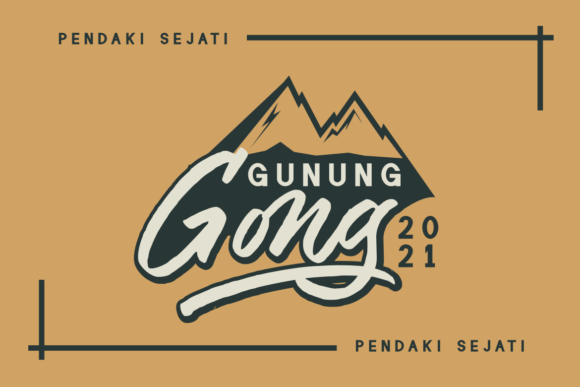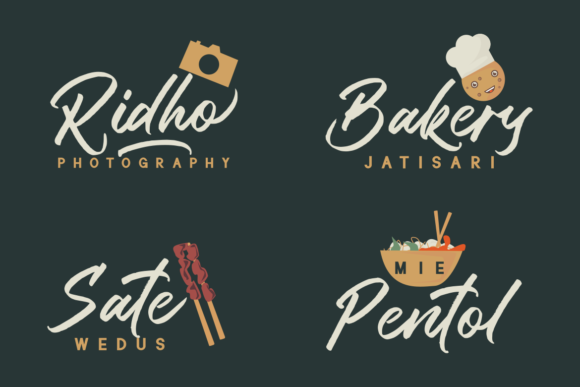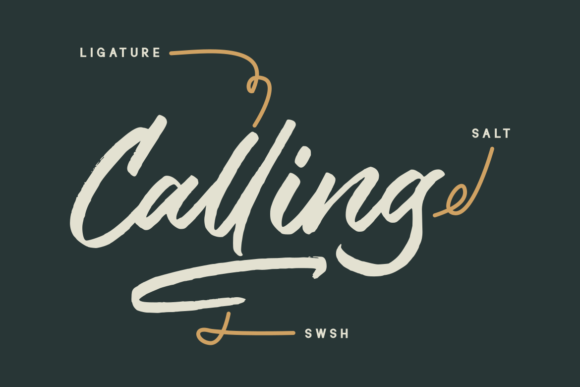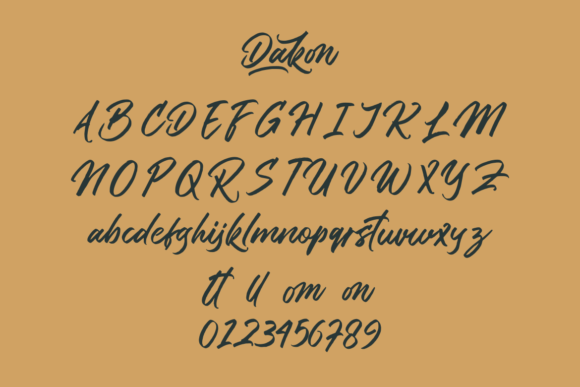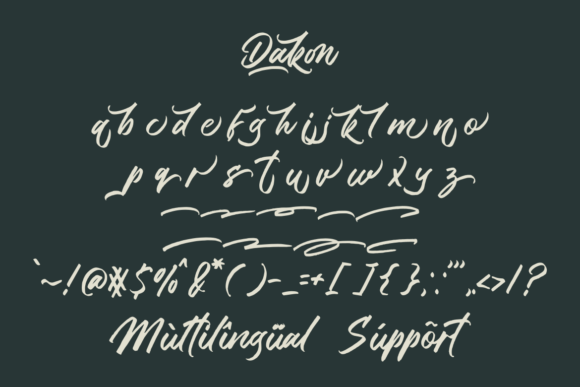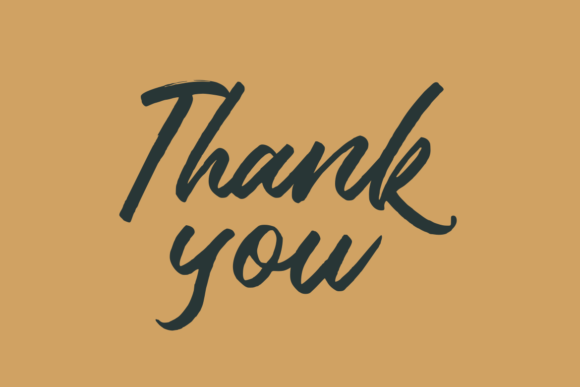
Introduction to Dakon Font
As I sat at my desk, surrounded by scraps of paper and empty coffee cups, I was on the hunt for the perfect font to bring my latest creative project to life. I wanted something elegant, yet effortless – a font that would capture the essence of handwritten love letters and summer afternoons spent sipping lemonade. And then, I stumbled upon it: the Dakon Font.
With its stunning, cursive lines and refined texture, the Dakon Font is the perfect addition to any design project. Whether you’re working on a wedding invitation, a heartfelt thank you card, or a logo that screams creativity, this font is sure to elevate your design to new heights. And the best part? It’s available for free download, making it an invaluable resource for designers of all levels.
As a design enthusiast, I can attest to the value of having high-quality fonts at your fingertips. The Dakon Font is a game-changer, offering a level of sophistication and elegance that’s hard to find in other fonts. Its transparent background makes it a breeze to work with, and its versatility means it can be used for a wide range of creative projects, from business cards to greeting cards and more.
Key Features of Dakon Font
- High-quality design: Dakon Font is a premium font designed for creative projects, offering a unique and stylish look.
- Transparent background: This font features a transparent background, making it easy to use on any design or background.
Honest Review: Dakon Font
I recently had the chance to work with the Dakon Font, and I must say it’s been a game-changer for my creative projects. The font is available for free download, which is a huge plus for designers on a budget. The quality of the font is top-notch, with crisp and clean lines that make it perfect for a wide range of design applications.
- What works well: ✨ The Dakon Font is incredibly versatile, making it easy to use in a variety of creative projects. The font is also available in a transparent background, which is perfect for designers who want to add an extra layer of depth to their designs.
- What works well: ✨ The font is also highly customizable, allowing designers to adjust the size, color, and style to suit their needs.
However, there are a few limitations to be aware of. ⚠️ The font may not be suitable for use in extremely small sizes, as the details can become blurry and difficult to read. Additionally, the font may not be compatible with all design software, so be sure to check compatibility before using it in your project.
Overall, I’m thoroughly impressed with the Dakon Font. It’s a high-quality design resource that’s perfect for designers of all levels. Whether you’re working on a small personal project or a large commercial campaign, the Dakon Font is definitely worth considering.
Tips for Getting the Most Out of Dakon Font
To get the most out of the Dakon Font, experiment with different font sizes, colors, and styles. You can also use it in combination with other design elements like images and graphics to create a unique and eye-catching design. Additionally, consider using the Dakon Font with a transparent background to add depth and dimension to your design.
Common Use Cases for Dakon Font
The Dakon Font is suitable for a wide range of creative projects, including logos, brochures, business cards, and social media graphics. It’s also great for creating titles, headings, and body text for your design projects.